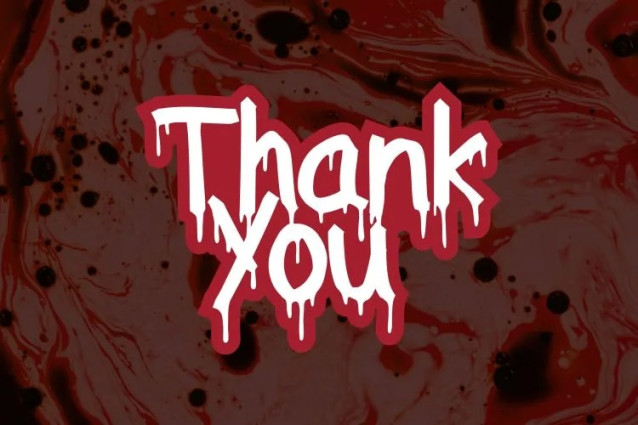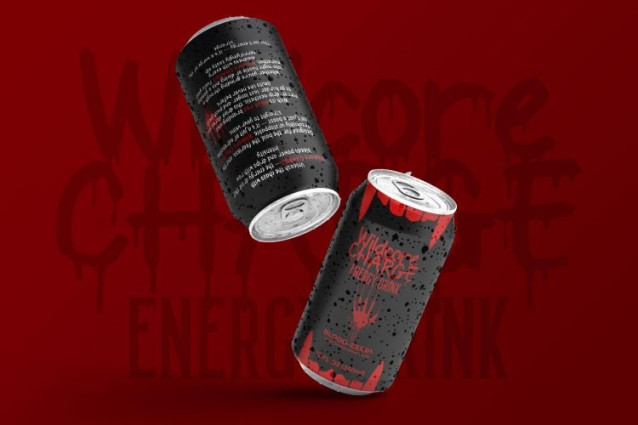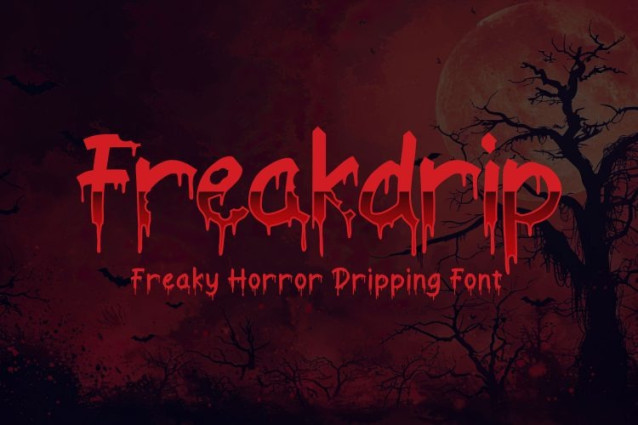
Freakdrip Font
Freakdrip Font is a freaky horror dripping font that oozes with personality. Its bold, liquid-like letterforms create a creepy, edgy, and thrilling vibe—perfect for designs that need to look spooky and unforgettable. The dripping effect adds a touch of grunge and gore, making it a must-have for Halloween projects, horror branding, and viral meme designs.